I think script font Google fonts are one of the most beautiful font styles we can use today. Then I explored Google Fonts and discovered script fonts. That moment changed the way I design and write. We often think fonts are small things but they are not. Fonts are important because they affect how people feel when they read our content.
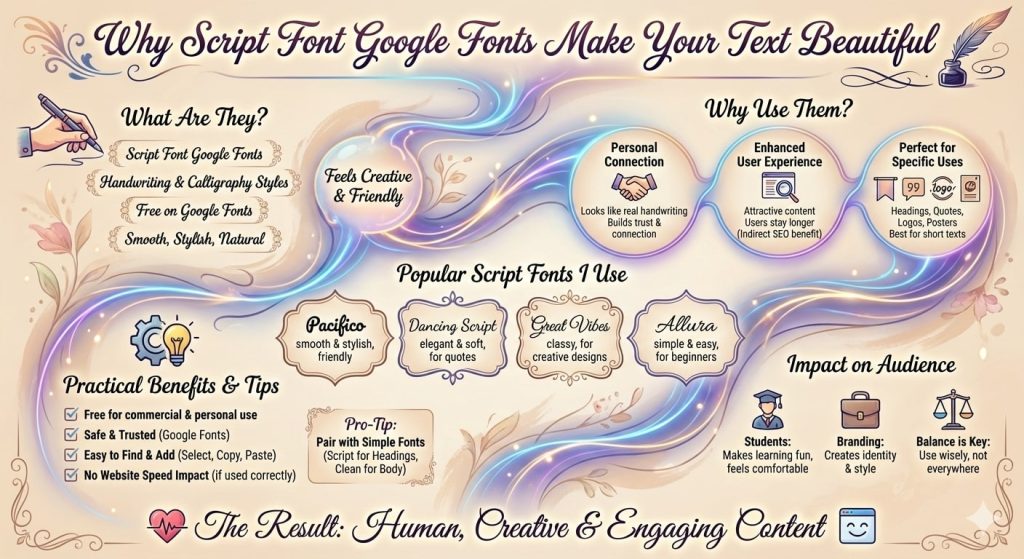
What Is Script Font Google Fonts
Script font Google fonts are font styles that look like handwriting or calligraphy. These fonts are available for free on Google Fonts. They are designed to look smooth, stylish and natural. When we use script fonts our text feels creative and friendly. That is why many designers and students love them.
Why I Started Using Script Font Google Fonts
I started using script font Google fonts when I wanted my content to feel special. I wanted something that feels human. Script fonts solved that problem. When I used them for headings and quotes people noticed the difference. They stayed longer on my page and enjoyed reading.
How Script Fonts Make Text Feel Personal
Script fonts look like real handwriting. That makes people feel connected. When users feel connected they trust the content. Script fonts help solve this issue. That is why we should use them wisely.
Popular Script Font Google Fonts I Use
Pacifico
Pacifico is smooth and stylish. I use it for headings and banners. It looks friendly and modern.
Dancing Script
Dancing Script feels elegant and soft. It is perfect for quotes and special lines.
Great Vibes
Great Vibes looks classy. I use it for creative designs.
Allura
Allura is simple and easy to read. It works well for beginners.
Where We Should Use Script Fonts
Script fonts should be used carefully.
Headings Quotes Logos Posters
They are best for short texts.
How Script Fonts Help Students
Script font Google fonts help students feel comfortable. They look like notebook writing. This makes learning fun. I think that is why they work well for educational content.
How Script Fonts Improve User Experience
Script fonts improve user experience by making content attractive. When content looks good users stay longer. That helps SEO indirectly.
Personal Experience With Script Font Google Fonts
When I used script fonts for my headings people commented that my site feels creative. That feedback motivated me to use them more smartly.
How To Match Script Fonts With Simple Fonts
We should pair script fonts with clean fonts. Script for headings and simple font for body text works best.
Why Script Fonts Build Trust
Script fonts feel handwritten. Handwriting feels honest. That is why people trust content more.
How Often We Should Use Script Fonts
We should use them in balance.
Script Fonts For Branding
Script fonts are great for branding. They help create identity and style.
How To Test Script Fonts Before Using
I always test fonts.
Preview text Check readability Ask feedback
This avoids mistakes.
Why Simple Design Works Best With Script Fonts
Simple design lets fonts shine.
FAQs
What is script font Google fonts?
Script font Google fonts are free handwriting style fonts available on Google Fonts.
Are script fonts good for websites?
Yes if used for headings and short text.
Can students use script fonts?
Yes, students can use them easily for projects.
Do script fonts help SEO?
They help indirectly by improving user experience.
Should we use script fonts everywhere?
No, we should use them wisely.
Conclusion
I think script font Google fonts are a powerful tool when used correctly. They make text feel human, creative and engaging. From my personal experience I can say that they help users connect with content. If you want your text to stand out you should try script fonts. We should always focus on readability and balance. This guide shared everything I learned so that you can use script fonts confidently and avoid mistakes. When users feel comfortable they stay longer and that helps your site grow and rank better.